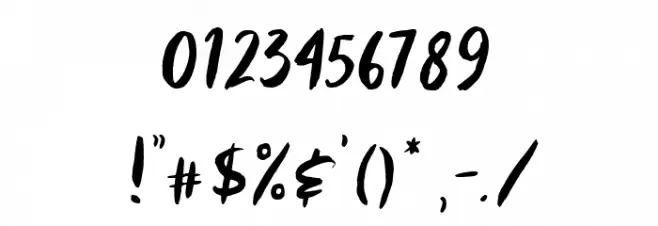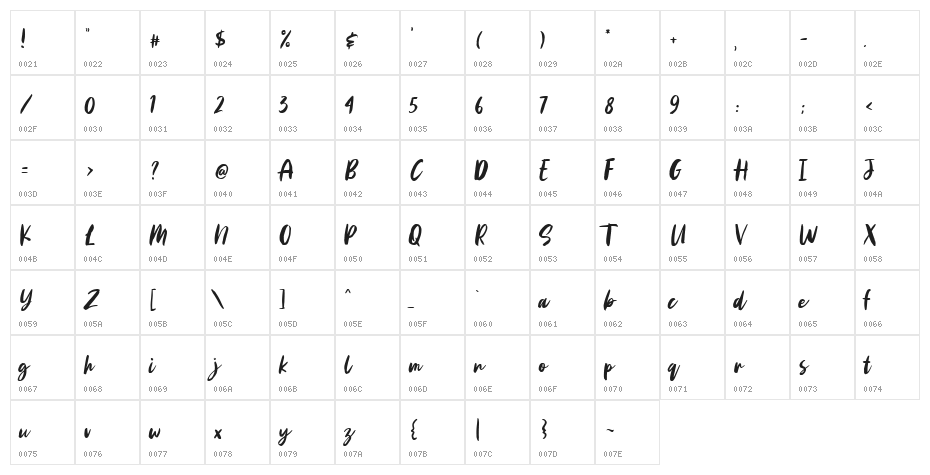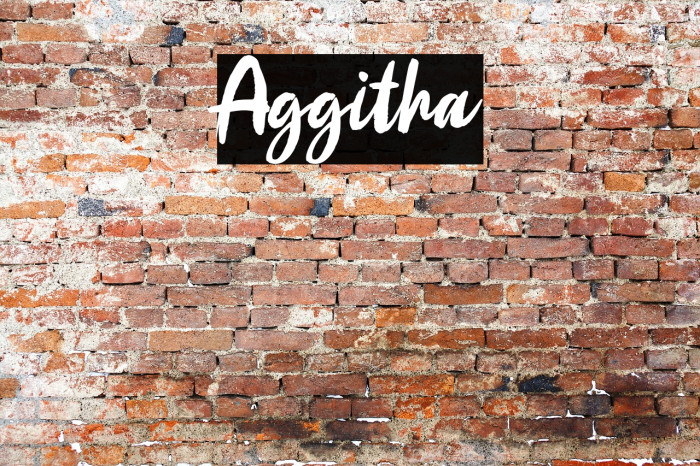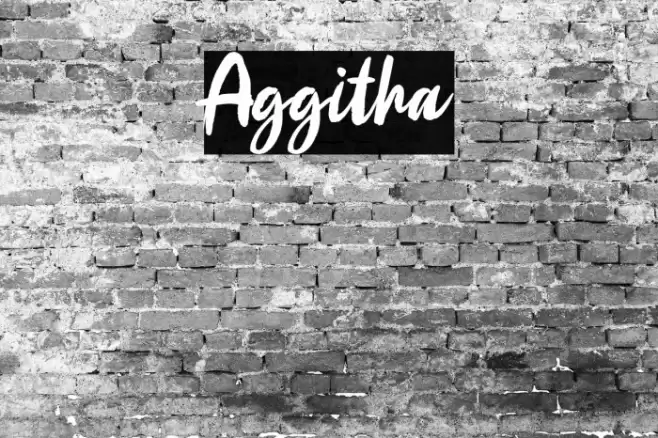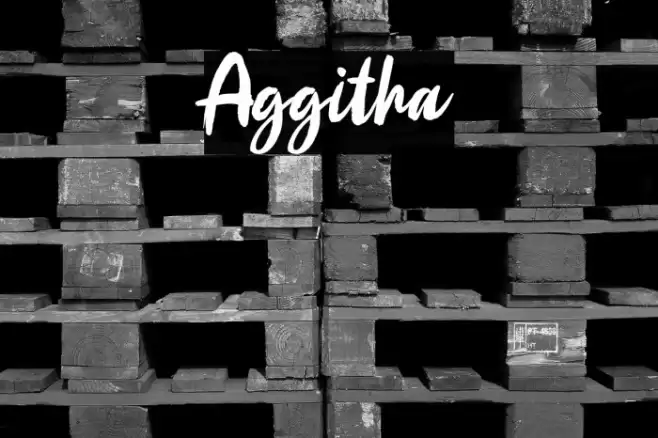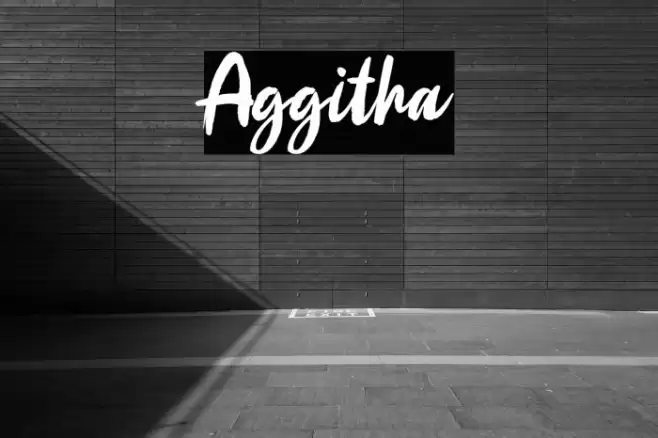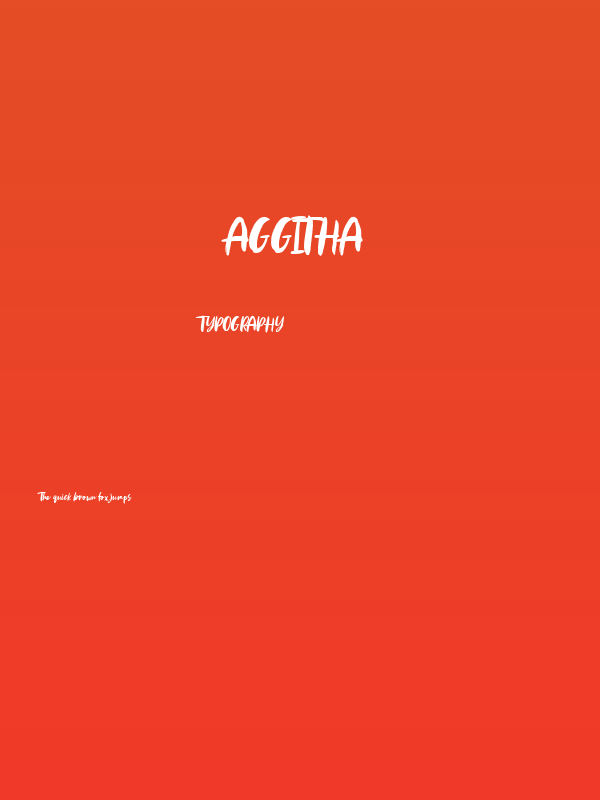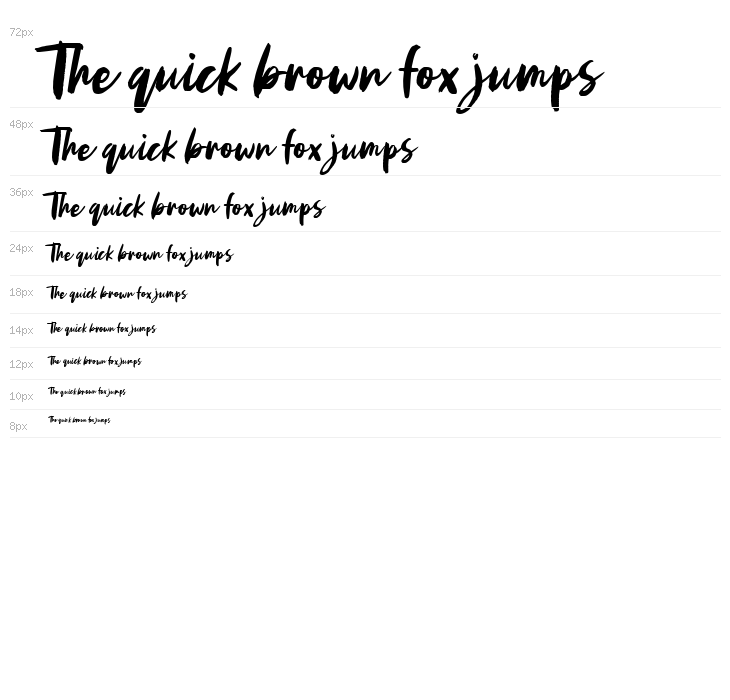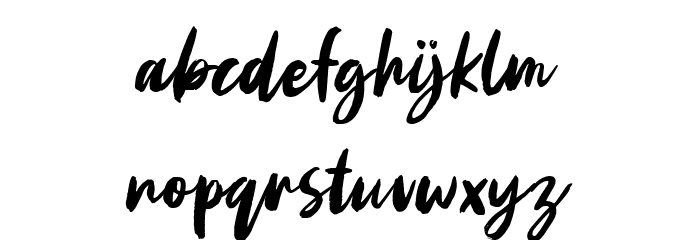
Aggitha Font
Aggitha Description
This font features a bold, expressive style with a handwritten appearance. The strokes are thick and dynamic, giving each character a lively and energetic feel. The uppercase letters are slightly taller than the lowercase, maintaining a consistent flow throughout the text. The numbers and special characters are designed with the same boldness, ensuring uniformity across all elements. The overall look is casual yet impactful, making it suitable for creative and informal applications. The font's brush-like texture adds a personal touch, enhancing its appeal for artistic projects.